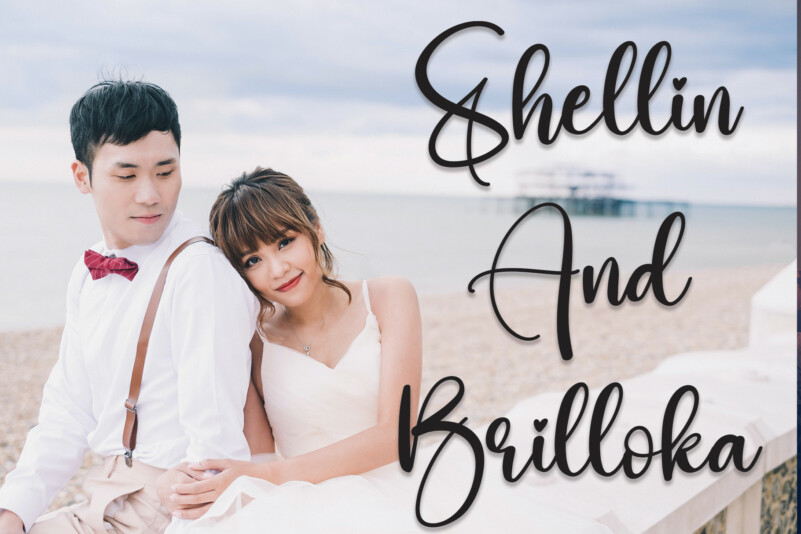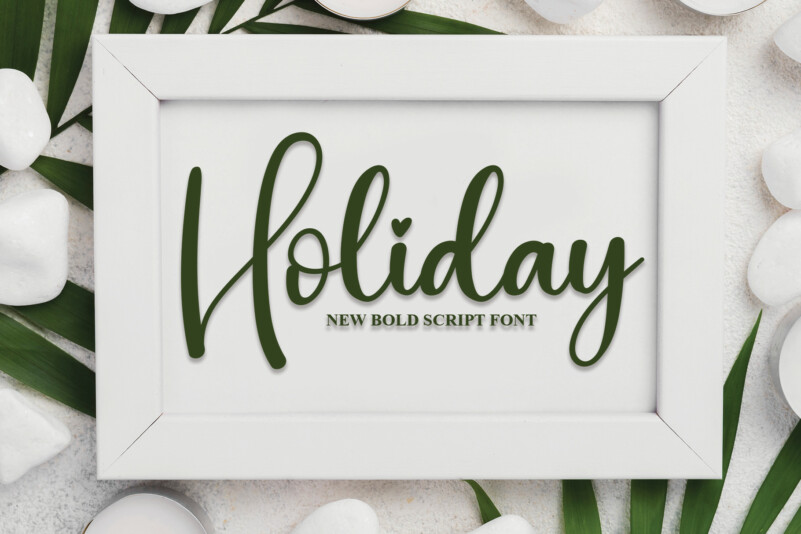
The Grinch Script Font
The Grinch Script Font is a gorgeous and bold handwritten font, crafted to give your headlines and logotype projects a stylish touch. This font reads as strong, confident, and dynamic and can add tons of nostalgic character to your designs.